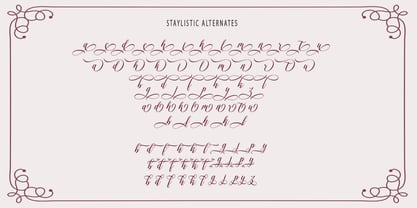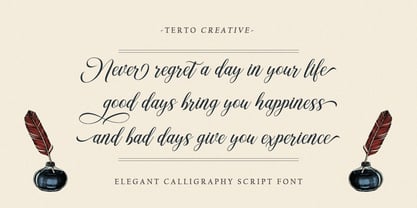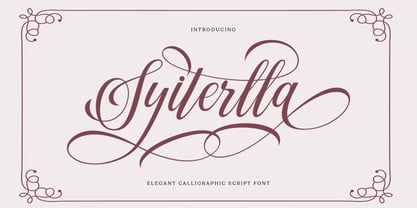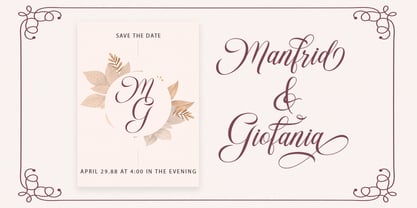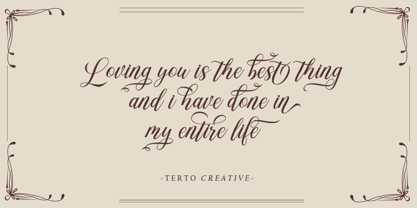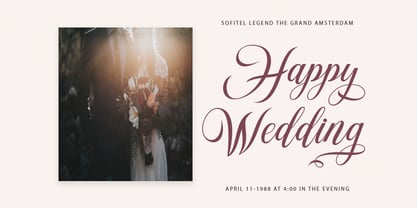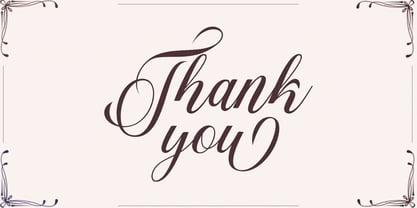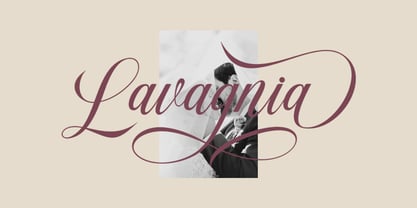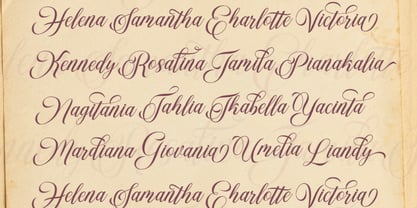
Syiterlla
by Tertoecreative
The Syiterlla Font Family was designed by Khai Dir and published by Tertoecreative. Syiterlla contains 1 styles. More about this family
Syiterlla is a calligraphy font that comes with beautifully changing characters, a kind of classic decorative copper font with a modern touch, designed with high detail to bring a stylish elegance. Syiterlla Calligraphy appeals as a typeface that is smooth, clean, feminine, sensual, glamorous, simple and very easy to read, because there are many luxurious letter connections. I also offer a number of decent style alternatives for many letters. The classic style is perfect for applying in various formal forms such as invitations, labels, restaurant menus, logos, fashion, makeup, stationery, novels, magazines, books, greeting/wedding cards, packaging, labels or any type of advertising purposes.
Designers: Khai Dir
Foundry: Tertoecreative